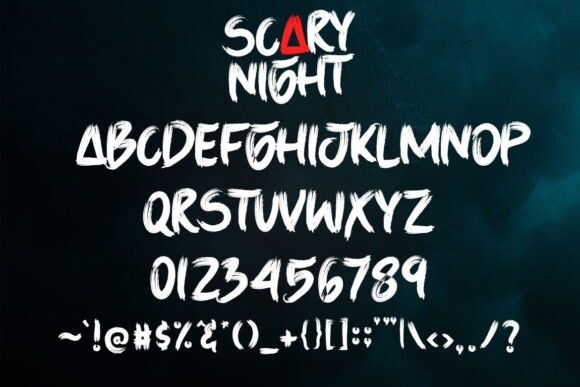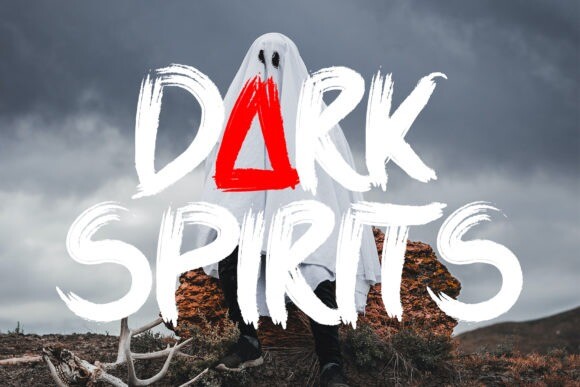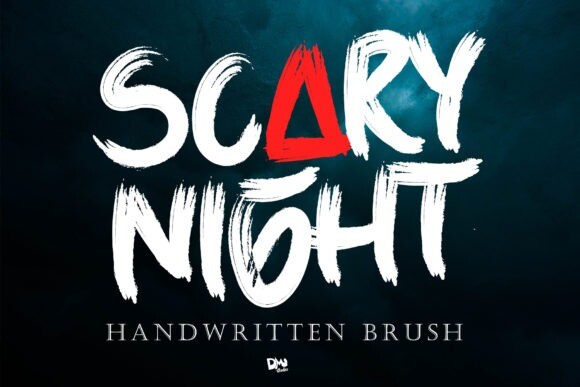
Scary Night Font
Scary Night Font is a creepy, handwritten brush font, suitable for your Halloween moment! Whether you’re looking for fonts for Instagram or calligraphy scripts for DIY projects, this font will turn any creative idea into a true piece of art!